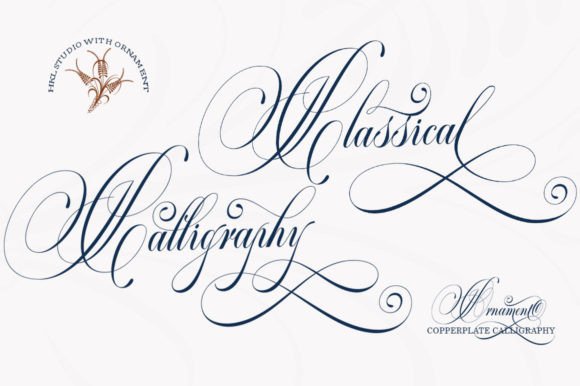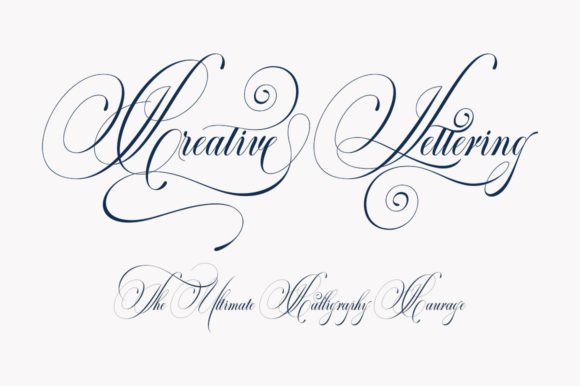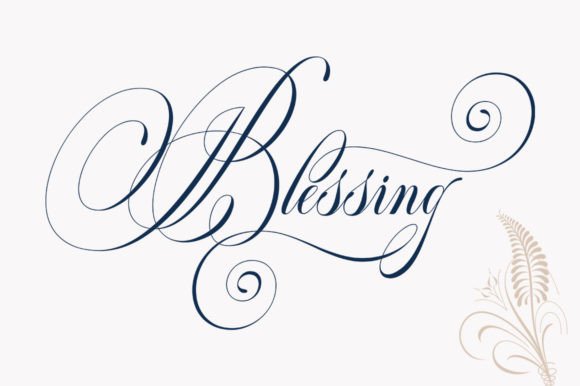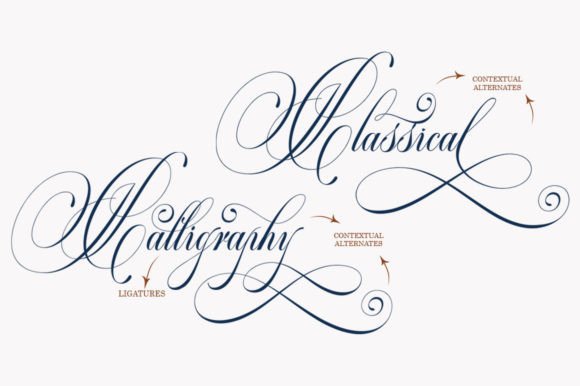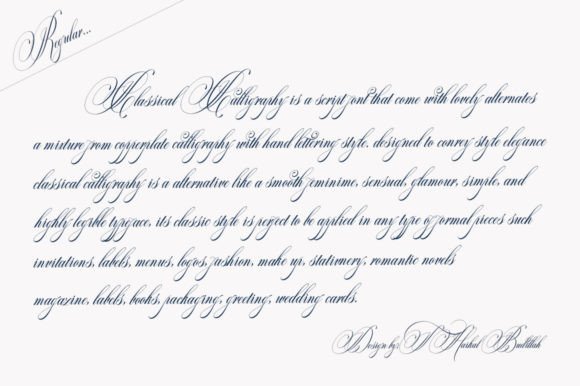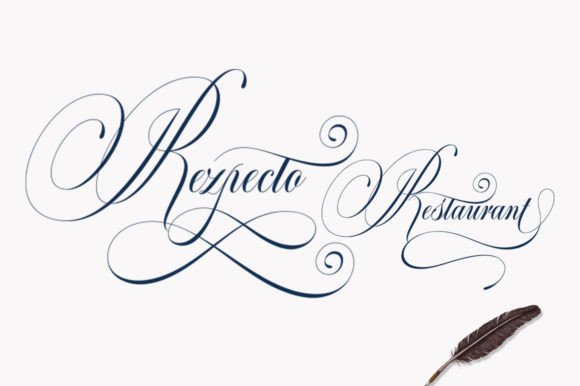
Discover the Timeless Beauty of Classical Calligraphy Font
Classical Calligraphy is an exquisite script font that blends vintage charm with a modern touch. Inspired by traditional Copperplate calligraphy and fluid handwriting styles, this font brings a sense of elegance and sophistication to any design.
Crafted with meticulous attention to detail, Classical Calligraphy features beautifully designed alternative characters, smooth curves, and graceful swashes. Whether you’re creating a high-end logo or designing a romantic wedding invitation, this typeface ensures your projects look polished and captivating.
Where Can You Use Classical Calligraphy?
This versatile script font adapts perfectly to a wide range of design applications:
✅ Logos & Branding: Give your visual identity a luxurious, refined look.
✅ Wedding Invitations: Create unforgettable stationery with graceful, romantic lettering.
✅ Alcohol Labels: Elevate your packaging with a classic and sophisticated style.
✅ Greeting & Romantic Cards: Set the mood with elegant, heartfelt typography.
✅ Event Signage & Menus: Add a touch of glamour and class to special occasions.
What Makes Classical Calligraphy Special?
This font combines the best of calligraphy traditions with modern readability:
✨ Copperplate Mixed Calligraphy: Classic influence that feels both vintage and fresh.
✨ Smooth, Clean Letterforms: Every character is crafted for maximum clarity and beauty.
✨ Feminine & Glamorous Feel: Perfect for brands and events that demand sophistication.
✨ Highly Readable: Even with decorative elements, your text remains clear and polished.
Why Choose Classical Calligraphy for Your Designs?
When you need a script font that balances artistry and practicality, Classical Calligraphy delivers:
🌸 Elegant & Romantic: Ideal for weddings, anniversaries, and luxury brands.
🎨 Versatile & Timeless: Works well across print and digital platforms.
💼 Professional Quality: Perfect for designers who want a refined, high-end feel.
From premium logos to artisan product labels, Classical Calligraphy elevates your visual storytelling.
How Does Classical Calligraphy Enhance Your Projects?
Classical Calligraphy is more than a typeface—it’s an experience. Its flowing curves and handcrafted details evoke a sense of nostalgia while still feeling contemporary. The result is a font that effortlessly communicates beauty, authenticity, and sophistication.
Pair it with minimalist layouts for a clean look or layer it with florals and textures for a romantic, vintage aesthetic. Whatever your vision, this font adapts to make it stunning.
If you’re searching for a calligraphy script font that combines vintage elegance with modern usability, Classical Calligraphy is the perfect choice. Its beautiful alternates, smooth flow, and exceptional readability make it an essential addition to any designer’s toolkit.